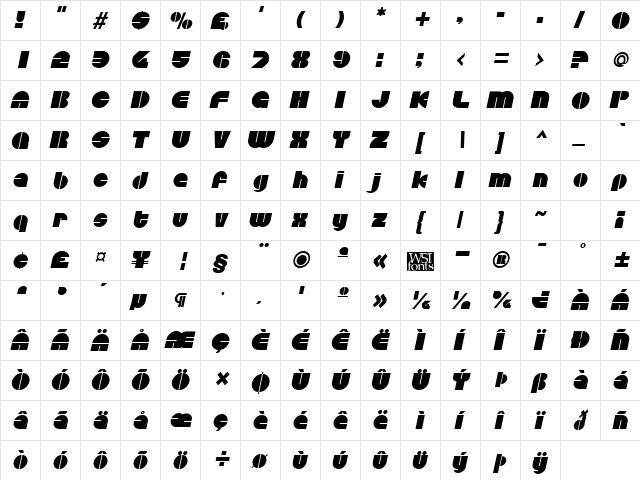
Discotheque Italic
Design Context for Discotheque Typeface
Discotheque is a composed and adaptable typeface that performs quietly and consistently across a wide range of design contexts. The slanted form adds forward momentum and visual energy.
Pro Tip: Try Discotheque for annotation and caption copy alongside an upright companion — the contrast in angle creates a dynamic but ordered typographic system.